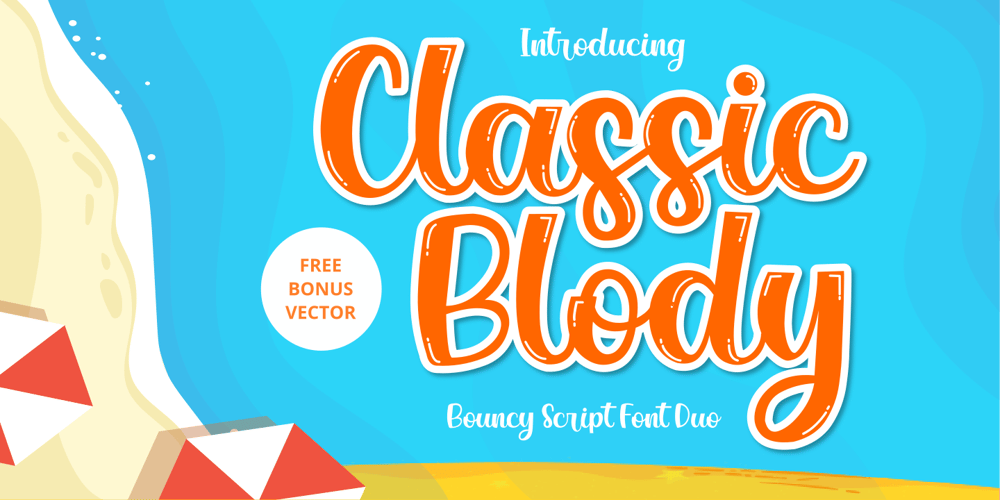
Classic Blody Font Family was designed by Zeenesia Studio and published by Zeenesia Studio. Classic Blody contains 2 styles and family package options. Classic Blody, The font that has 2 Style with beauty script make your design to be perfect. Classic Blody perfect for large design project like Tshirt, Advertising, bags, book cover, quotes, food, logo , poster, fashion, custom sticker, magazine, and many others. It completed with numbers and punctuation. Multilingual support, and came with PUA encoded. and you will get free editable vector bonus for compliting your project. enjoy ๐